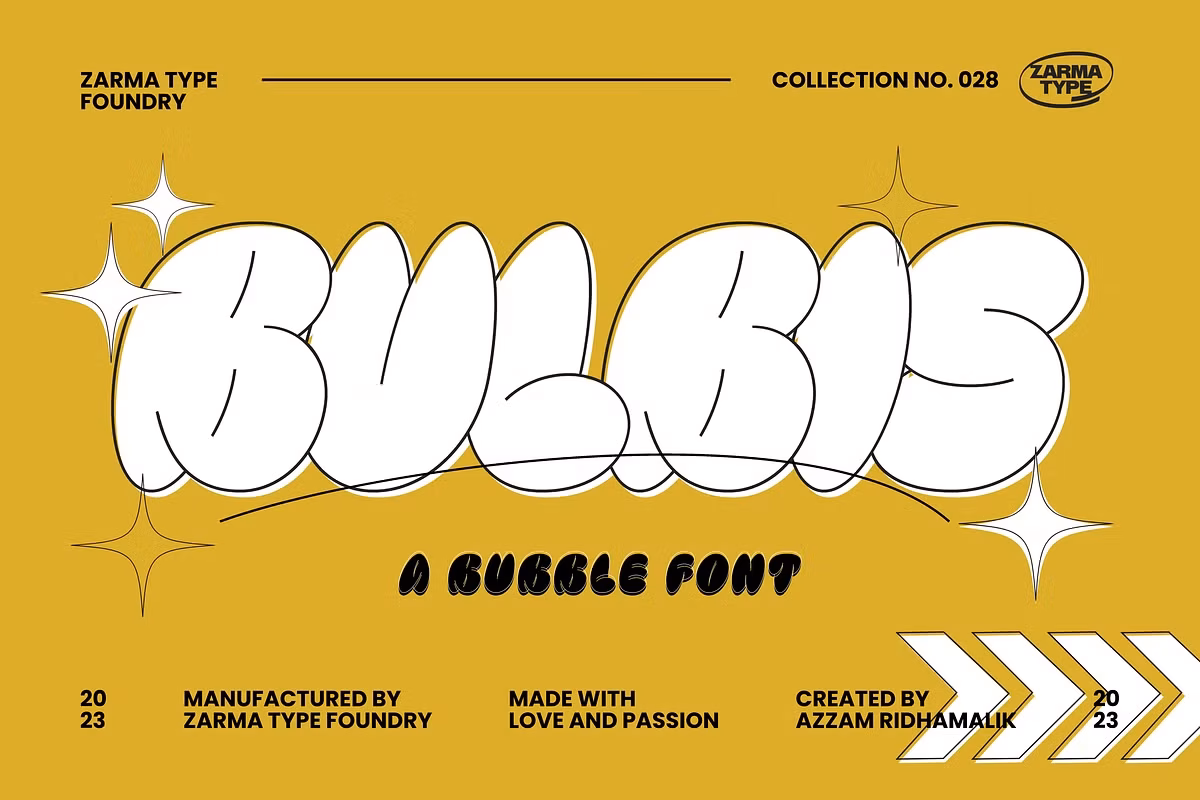
Bulbis - Bubble Font Free Download
With its rounded shapes, bold presence, and cartoonish vibe, Bulbis is perfect for kids’ designs, party invitations, toy packaging, game titles, and quirky branding. It adds an instant sense of happiness and friendliness, making your message pop—literally!